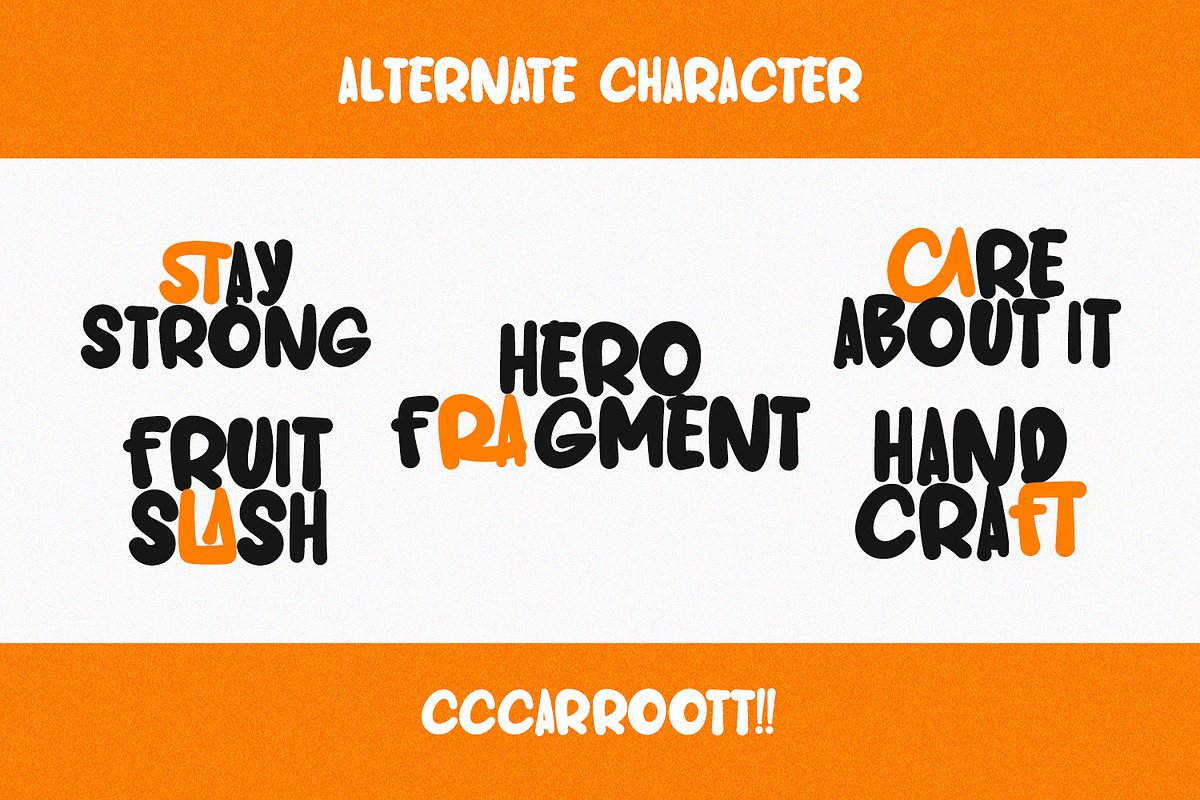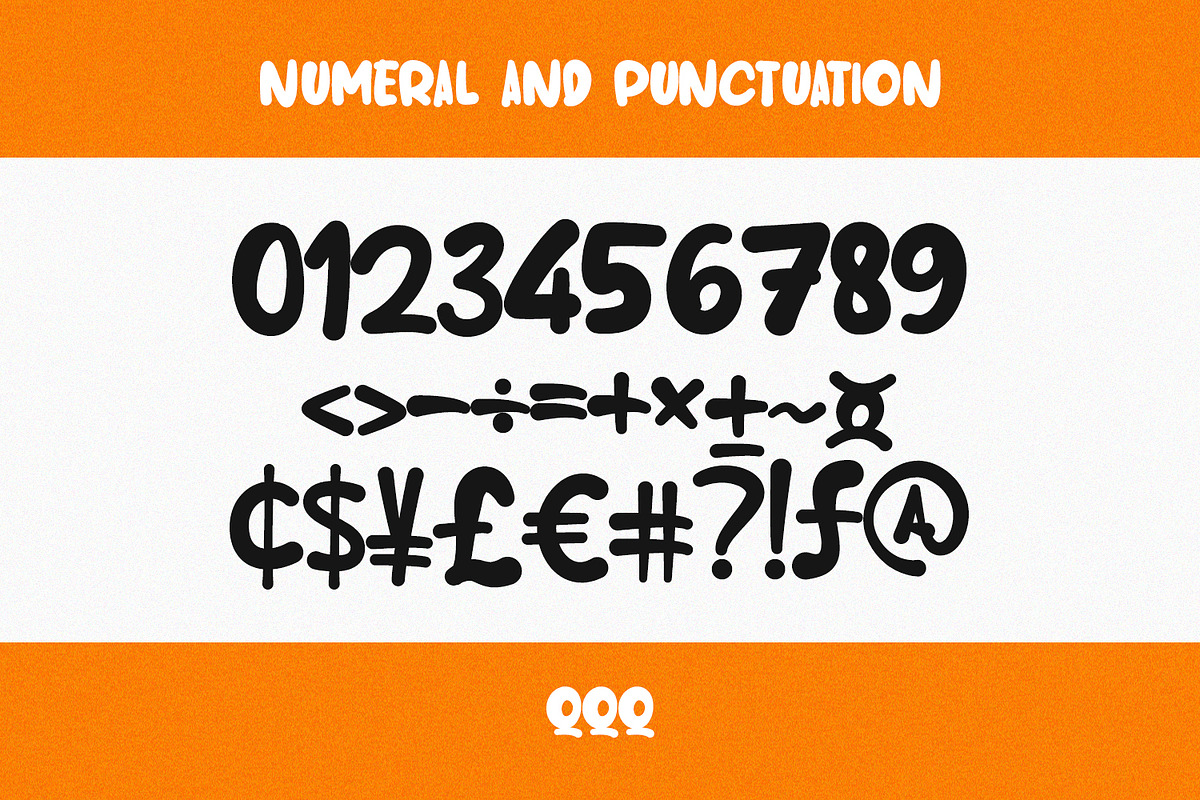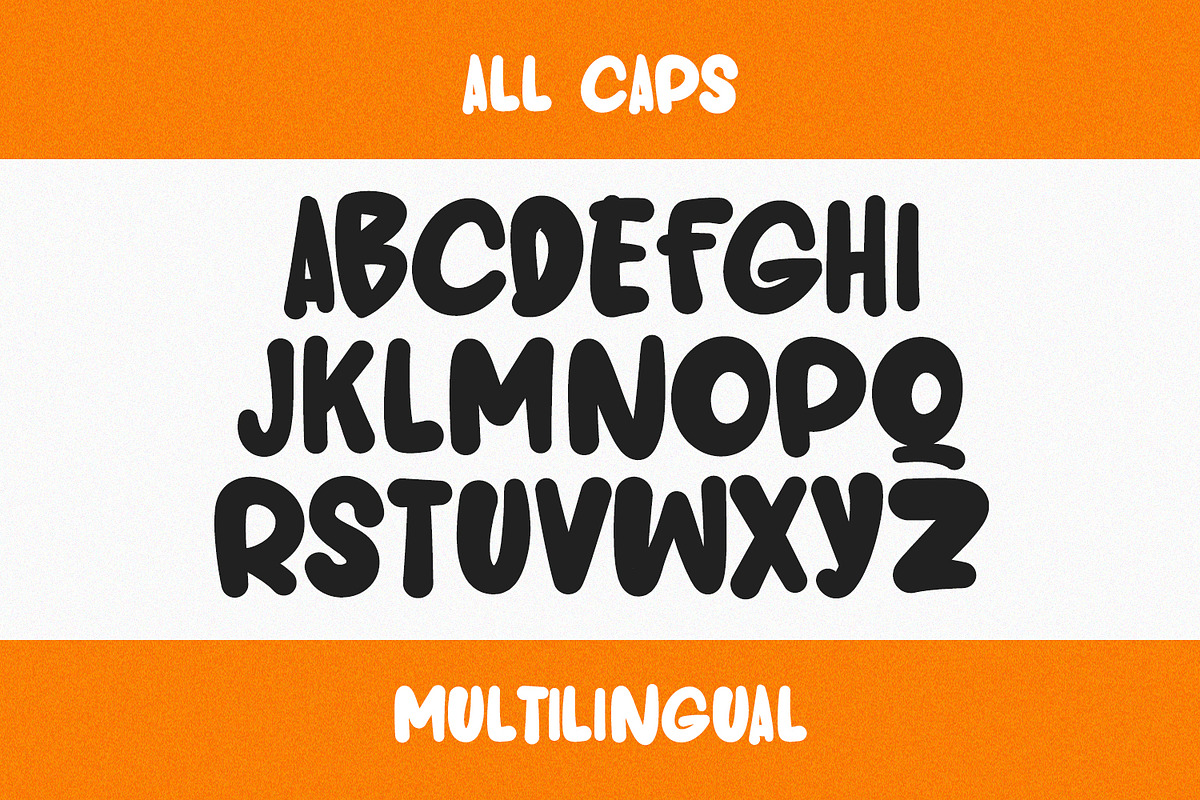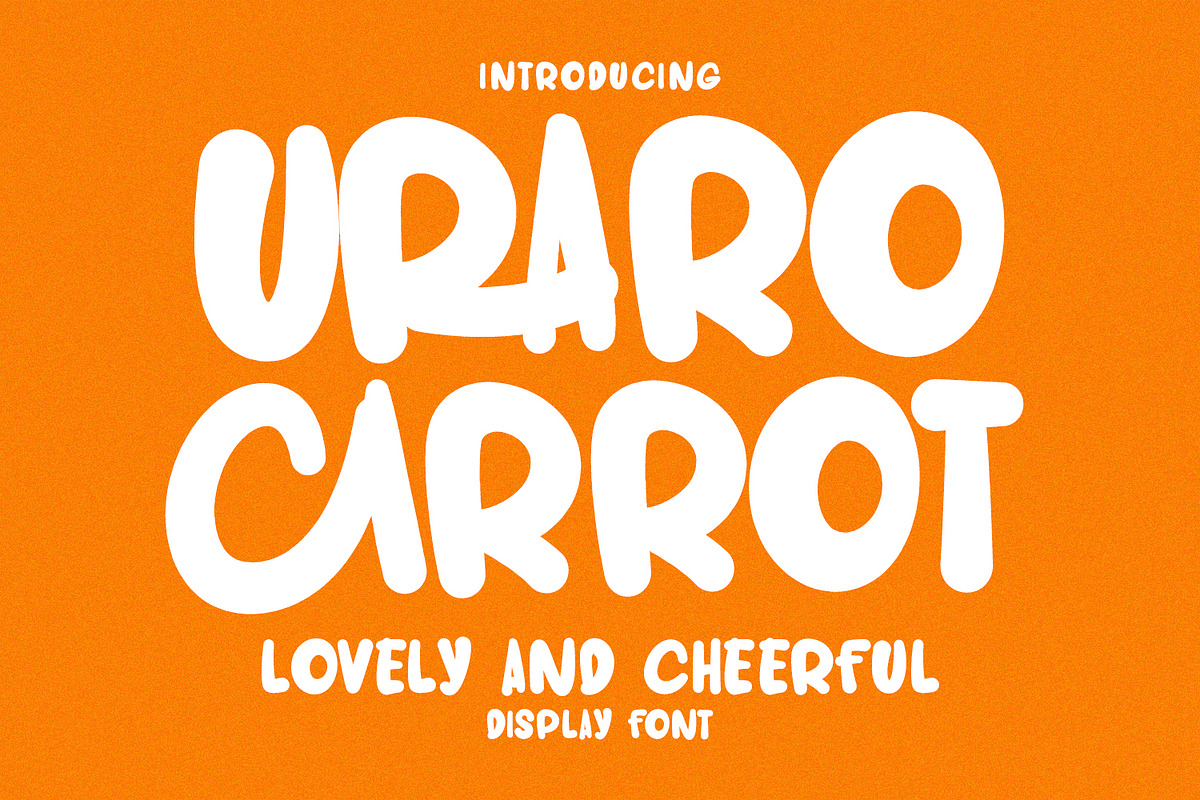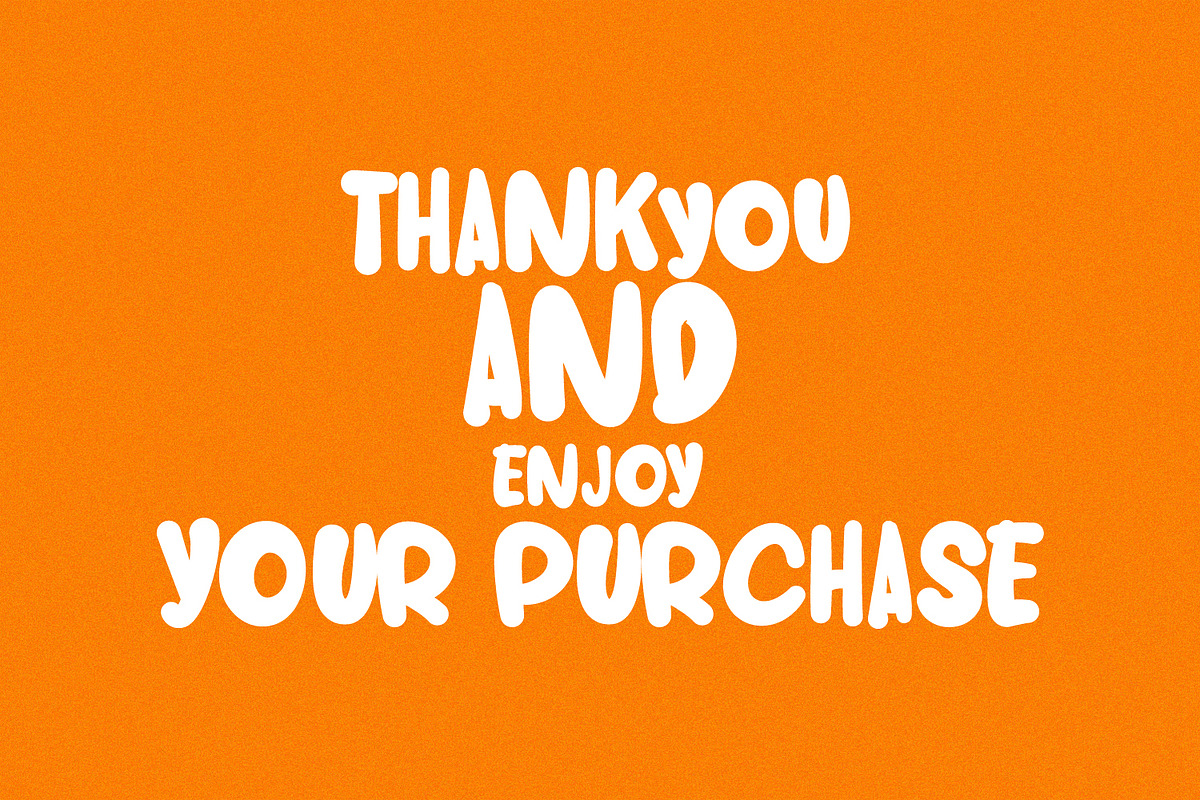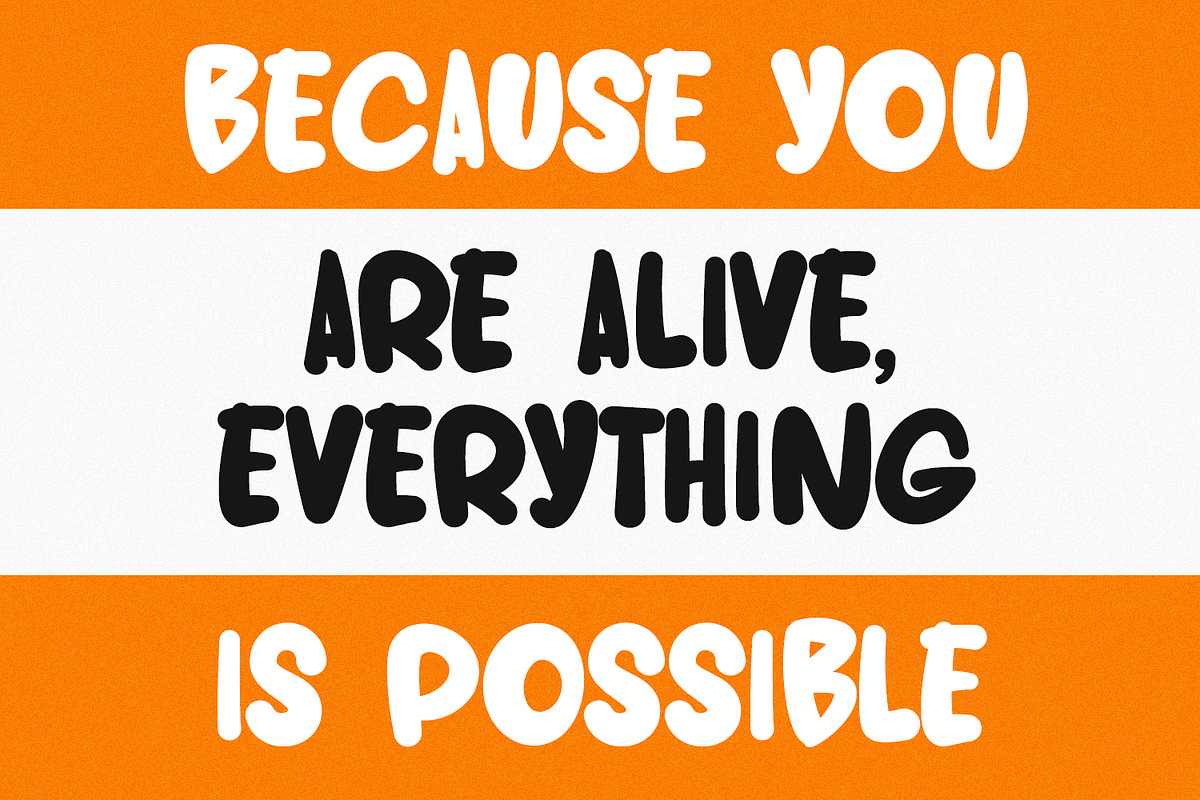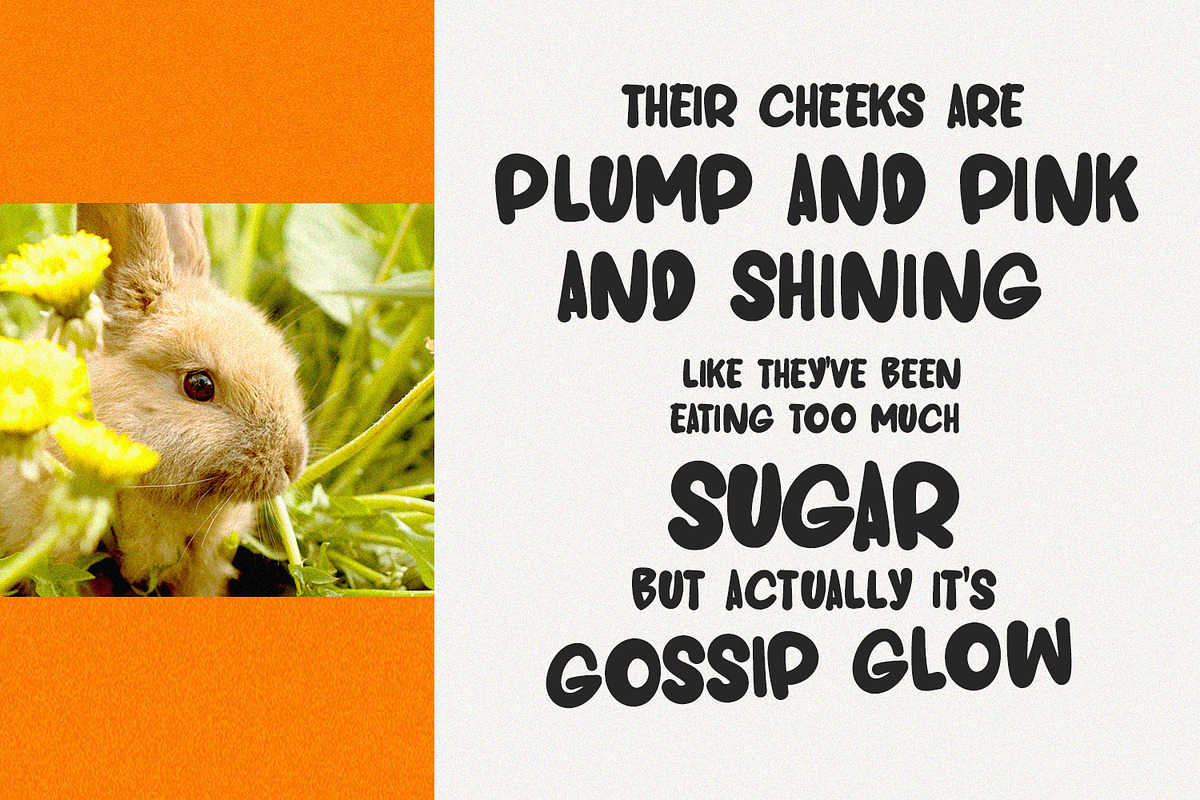
Uraro Carrot Lovely Cheerful Display
Uraro Carrot is a lovely cheerful display handwritten font. With bold stroke, fun character with a bit of ligatures. To give you an extra creative work. Uraro Carrot font support multilingual more than 100+ language. This font is good for logo design, Social media, Movie Titles, Books Titles, a short text even a long text letter and good for your secondary text font with sans or serif. Make a stunning work with Uraro Carrot font.